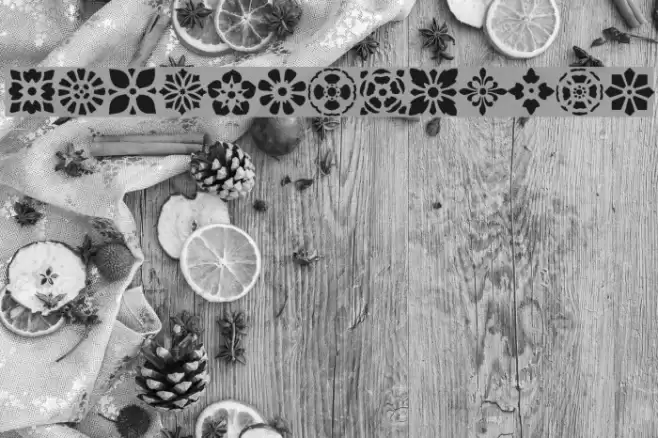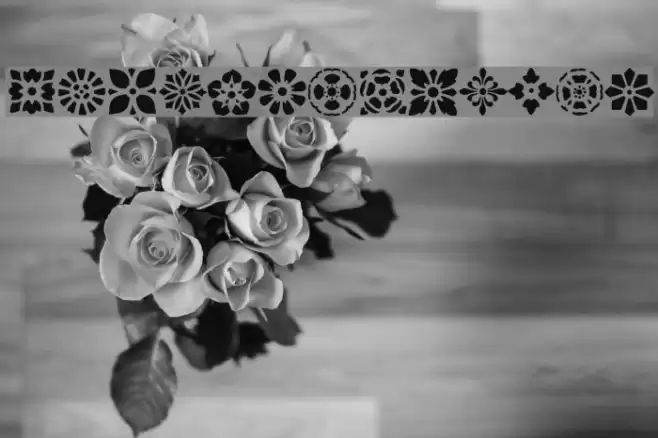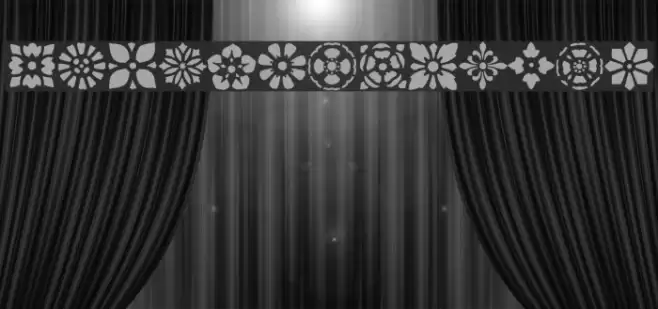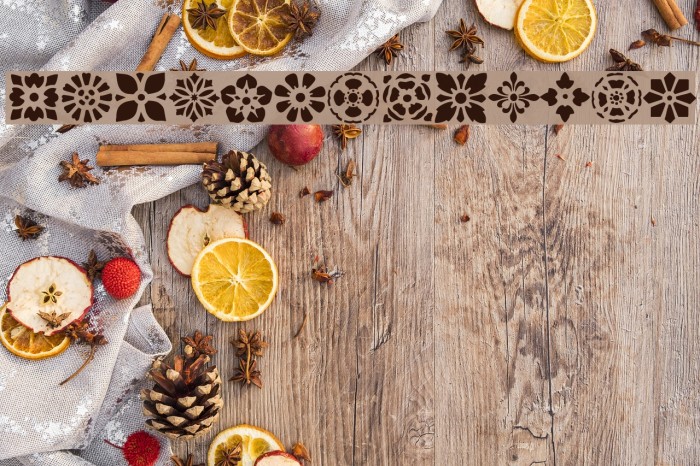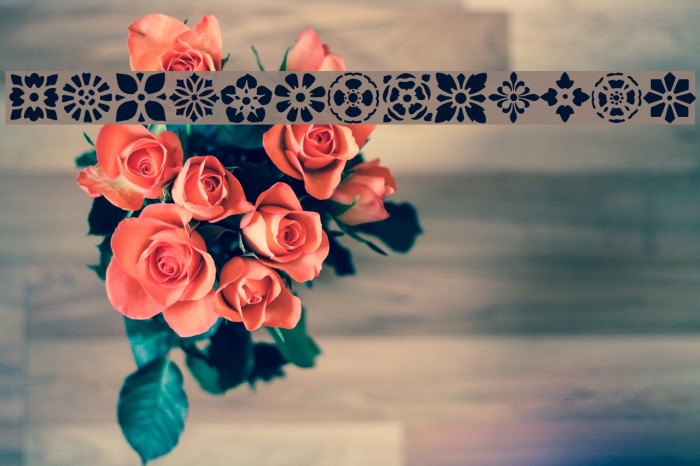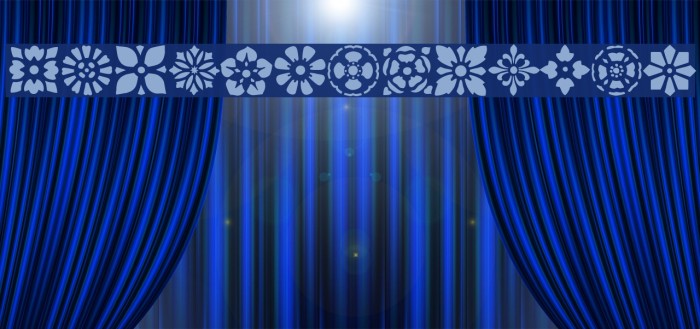
Victorian Designs One Font
Victorian Designs One Description
Ornamental and decorative font featuring intricate Victorian-inspired floral and geometric motifs, with each character represented by a unique design element rather than traditional letterforms.
Highly decorative Victorian-style ornamental font from Uncategorized fonts.
- Proposed Projects: Invitations, certificates, decorative borders, vintage-themed posters, packaging, scrapbooking.
- Overall Style: Victorian, Decorative, Ornamental
- Use Case: Borders, embellishments, display graphics, not suitable for body text.